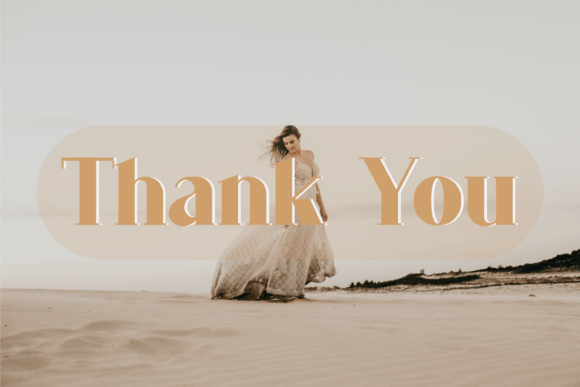
Rastisya - Brush Script Font for Bold Branding & Merch
Rastisya is a display‑style font with expressive letterforms — built to make statements rather than blend in. Its design delivers a strong visual voice, giving your text a bold, creative, and memorable look that works especially well for titles, logos, posters, signage, or packaging where you want maximum impact.
Far from a bland, generic typeface — Rastisya brings personality and flair. Use it when you want your typography to draw attention and reflect creativity, character, and standout design rather than subtlety or neutrality.
- Graphic and brand designers designing logos, labels, or packaging with a strong, creative vibe
- Crafters, small‑business or handmade goods sellers needing a bold font for product packaging, tags, signs or merch
- Etsy / POD / merchandise shop owners who want an expressive, standout font for product names, posters, or branding
- Designers creating posters, flyers, event signage, marketing materials, or decorative graphics
- Content creators and social‑media designers needing a display‑ready font for banners, ads, headers, or digital art
- Brand logos and wordmarks with personality and flair
- Product packaging, labels, tags, and handmade‑goods branding
- Posters, flyers, event signage, promotional graphics
- Merchandise graphics — t‑shirts, mugs, tote bags, stickers using bold text
- Social media graphics, web banners, ad creatives (after web‑font conversion, if license allows)
- Wall art, typographic prints, decorative art pieces with strong display text
- Display‑ready glyph set suitable for headings, logos, packaging, signage, or posters
- Strong and expressive font style — helps your brand or design make a bold statement
- Great for creative, artistic, or edgy design aesthetics — perfect for posters, merch, branding
- Versatile across many design types: packaging, signage, merch, social media, print, digital
- Works well when combined with simpler fonts (e.g. clean sans‑serif) to balance readability and style
Q: Is Rastisya suitable for body text or long paragraphs?
A: No — Rastisya is designed as a display font and works best for headings, titles, packaging, logos, signage, or short text. For long body copy, a simpler serif or sans‑serif font will be more readable. -
| Feature | Rastisya | Generic Clean Sans‑Serif | Generic Classic Serif |
| Font Style | Expressive display / headline font — bold, stylized, eye‑catching | Clean, minimal sans‑serif — neutral, modern, very readable | Classic serif — traditional, balanced, good for long text or classic design |
| Best Use | Logos, packaging, posters, signage, merchandise, titles | Web text, UI, minimal branding, body copy | Editorial, books, articles, longer text blocks, classic print |
| Readability at small size / body use | Low — best at display/large size | High — excels at small/medium text sizes and web use | High — good for readable body copy in print or web |
| Visual Vibe | Bold, creative, distinctive, expressive, statement‑making | Neutral, modern, clean, minimal, unobtrusive | Classic, formal, traditional, balanced, readable |